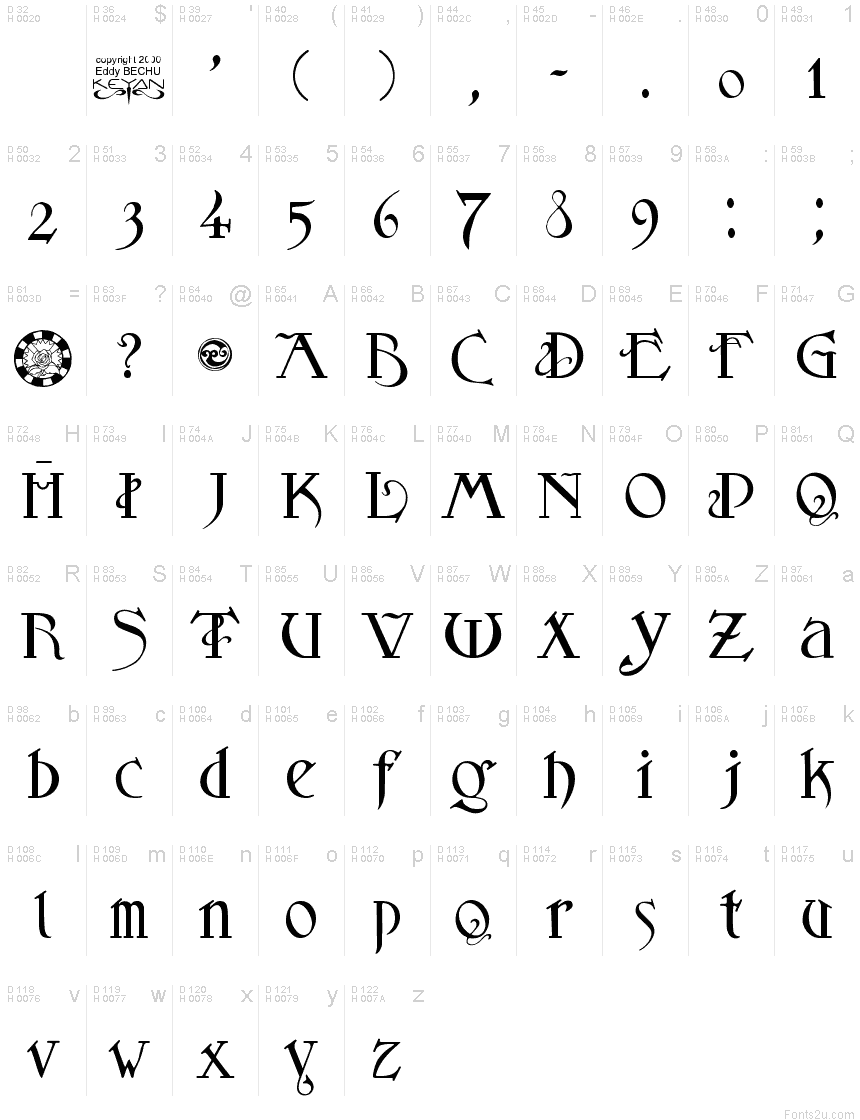
SansLogique
Sans Logique font by Brian Powers and Keyan is a free decorative display font with narrow, calligraphic shapes, sharp serif details, and long curved strokes that give the letters a slightly theatrical rhythm. The forms mix smooth arches with pointed endings, so the face feels more ornamental than plain sans and keeps a distinctive, handwritten edge.
Sans Logique works well for poster titles, magazine headers, album art, branding, and invitation design where a stylized serif voice can carry the layout. This free font also fits logo accents, editorial quotes, and packaging because its flowing curves and clipped serifs give short text a clear graphic presence without needing extra decoration.